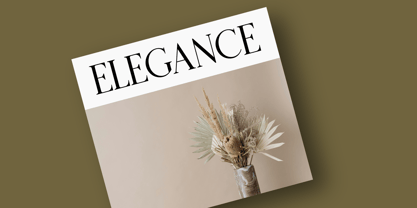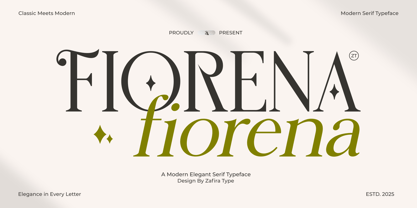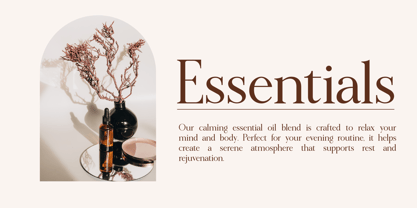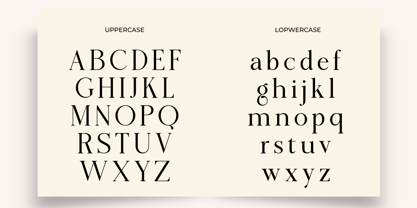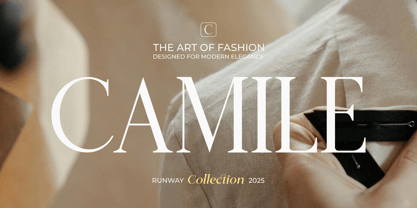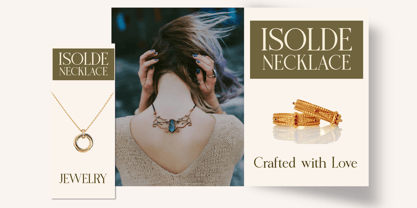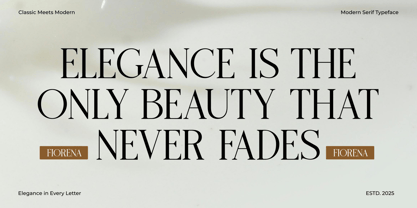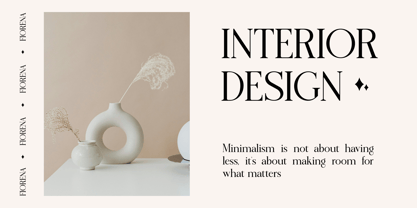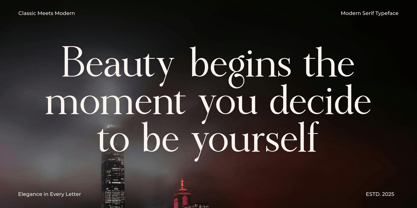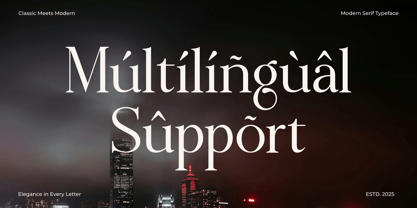
Fiorena
by Zafira Type
The Fiorena Font Family was designed by Su Hirno and published by Zafira Type. Fiorena contains 2 styles and family package options. More about this family
Fiorena is a sophisticated serif display font that seamlessly combines timeless elegance with contemporary flair. Each letterform is meticulously designed with balanced proportions and intricate details, making it an ideal choice for projects that require a luxurious and refined aesthetic. With its bold yet graceful character, Fiorena excels in various applications, including branding, editorial headlines, logos, wedding invitations, packaging, and social media graphics. This font not only imparts a striking, premium feel but also ensures high legibility in larger sizes, making it a versatile addition to any design toolkit.
Designers: Su Hirno
Foundry: Zafira Type